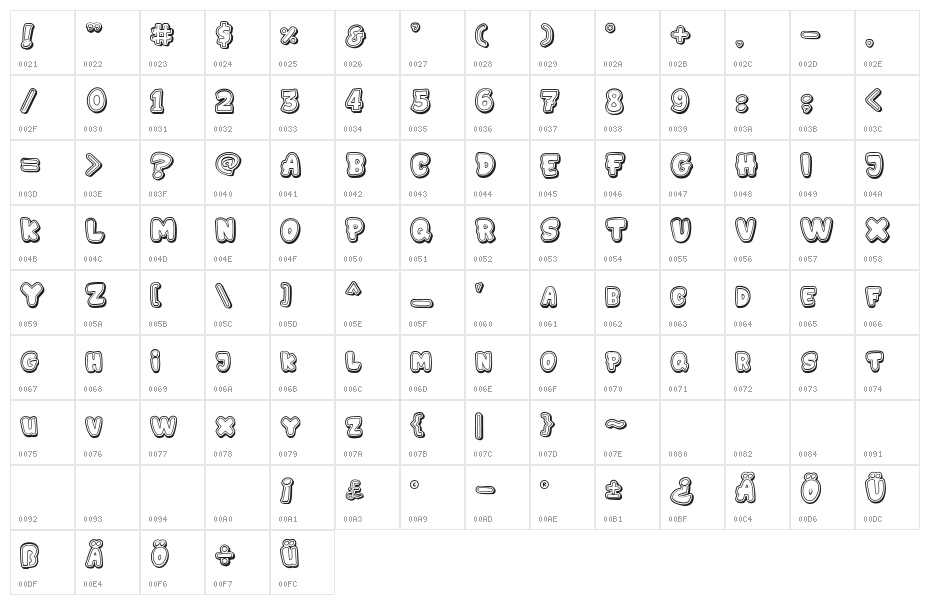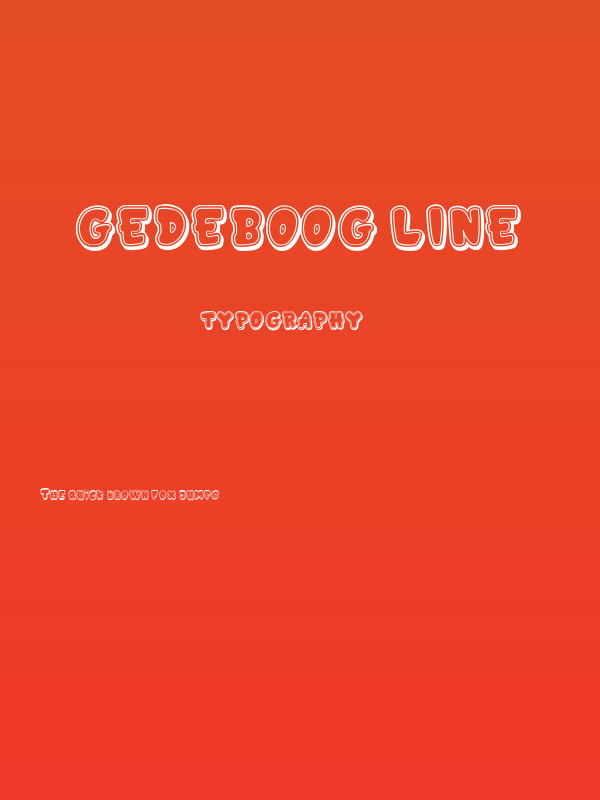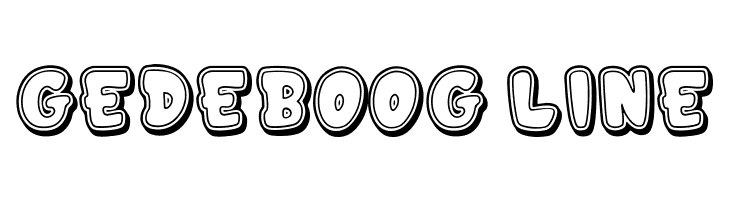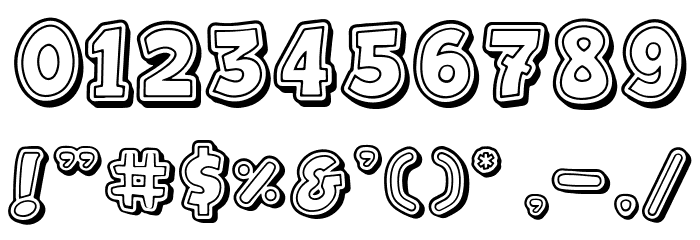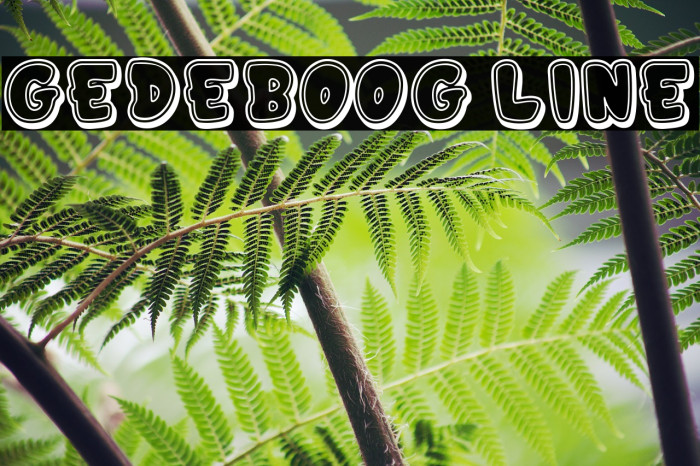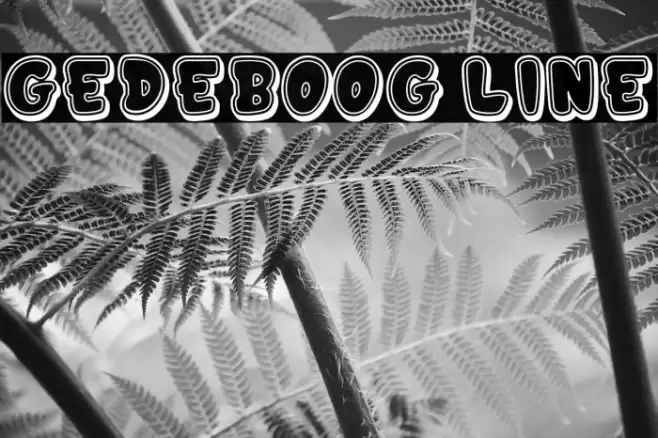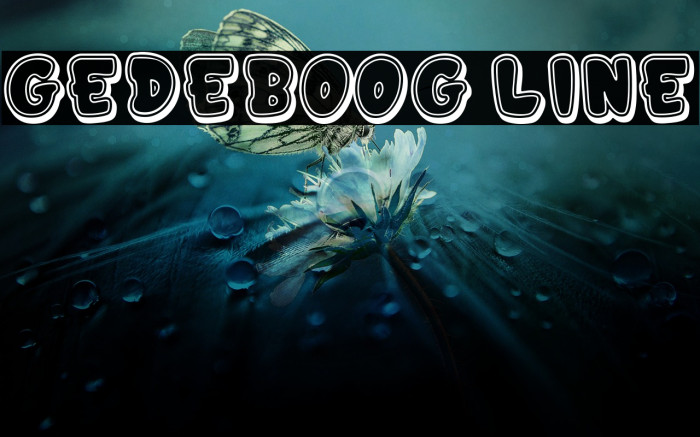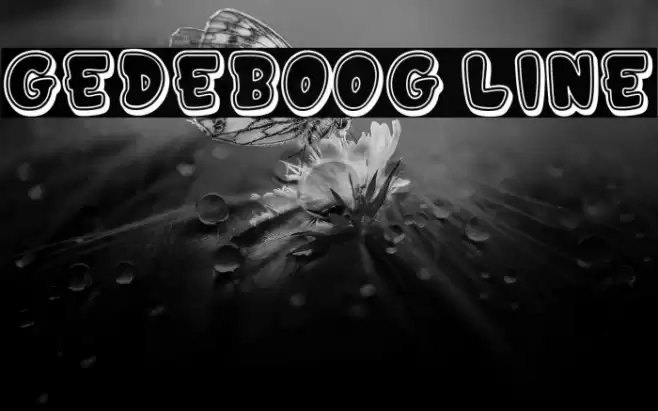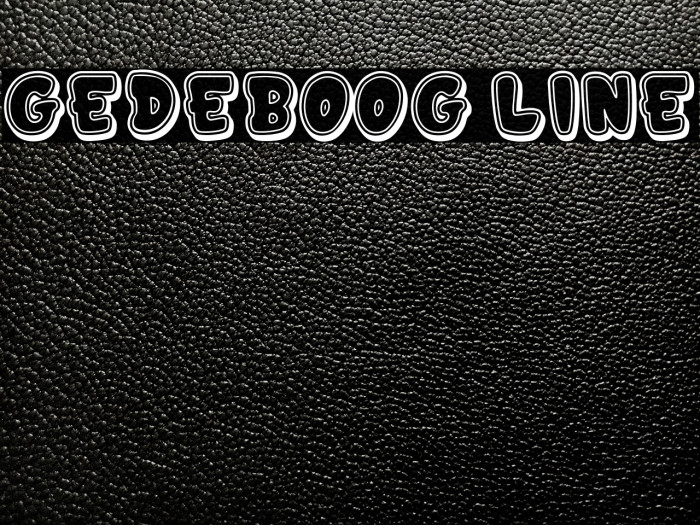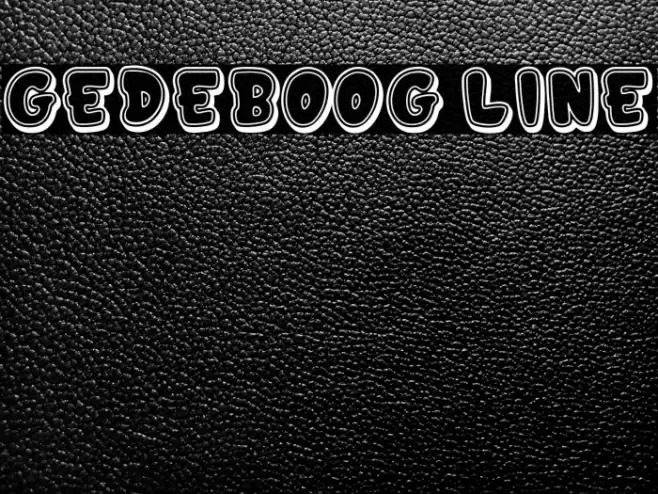
GEDEBOOG LINE Font
GEDEBOOG LINE Description
This playful and bold font features a bubble-like appearance with thick outlines, giving it a cartoonish and fun vibe. The characters are rounded and have a consistent thickness, creating a cohesive and lively look. The uppercase and lowercase letters maintain a uniform style, while the numbers and special characters complement the overall design. The font's whimsical nature makes it ideal for projects that require a touch of humor and creativity. Its bold presence ensures readability while adding a unique flair to any text.
| Overall Style | Playful, Cartoonish, Fun |
| Proposed Projects | Ideal for children's books, comic strips, playful branding, party invitations, and posters. |